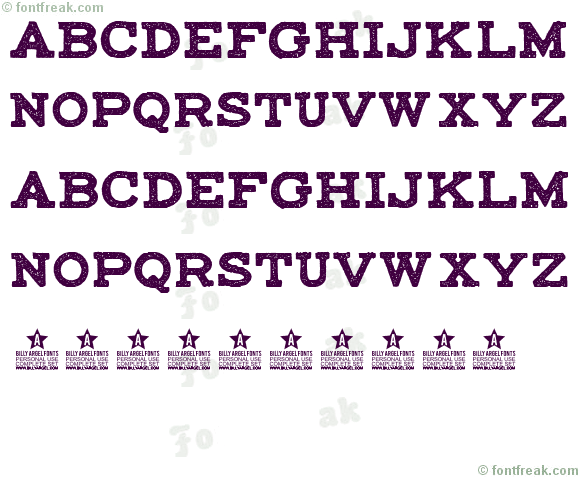
maccrap asphalt personal use Regular
About maccrap asphalt personal use Regular
The maccrap asphalt personal use Regular font, designed by Billy Argel Fonts, falls into the category of display typefaces. This unique font features a bold, industrial style that captures attention with its confident presence. The stroke weight is substantial, providing a strong visual impact, while the overall design exhibits a rugged charm reminiscent of urban environments. The font showcases minimal contrast, maintaining a consistent thickness that enhances its readability. It is characterized by slightly irregular edges, giving it a handmade, authentic feel. The spacing is balanced, allowing for easy legibility while preserving the font's distinctive character.
This font is particularly well-suited for a variety of creative projects. It shines in applications such as movie posters, where its striking appearance can evoke a sense of drama or adventure. Additionally, the maccrap asphalt personal use Regular font works wonderfully for restaurant menus, providing a contemporary edge that appeals to modern diners. Graphic designers will find it fitting for branding materials, especially for businesses that want to convey a bold, stylish image. Furthermore, it can be utilized effectively in promotional materials for events, capturing the essence of excitement and energy.
What sets the maccrap asphalt personal use Regular font apart is its combination of urban aesthetic and versatility. Its distinctive style not only grabs attention but also allows for a range of expressive applications, making it a valuable addition to any designer's toolkit. For those interested, the maccrap asphalt personal use Regular font free download is readily available, inviting users to explore its creative potential.